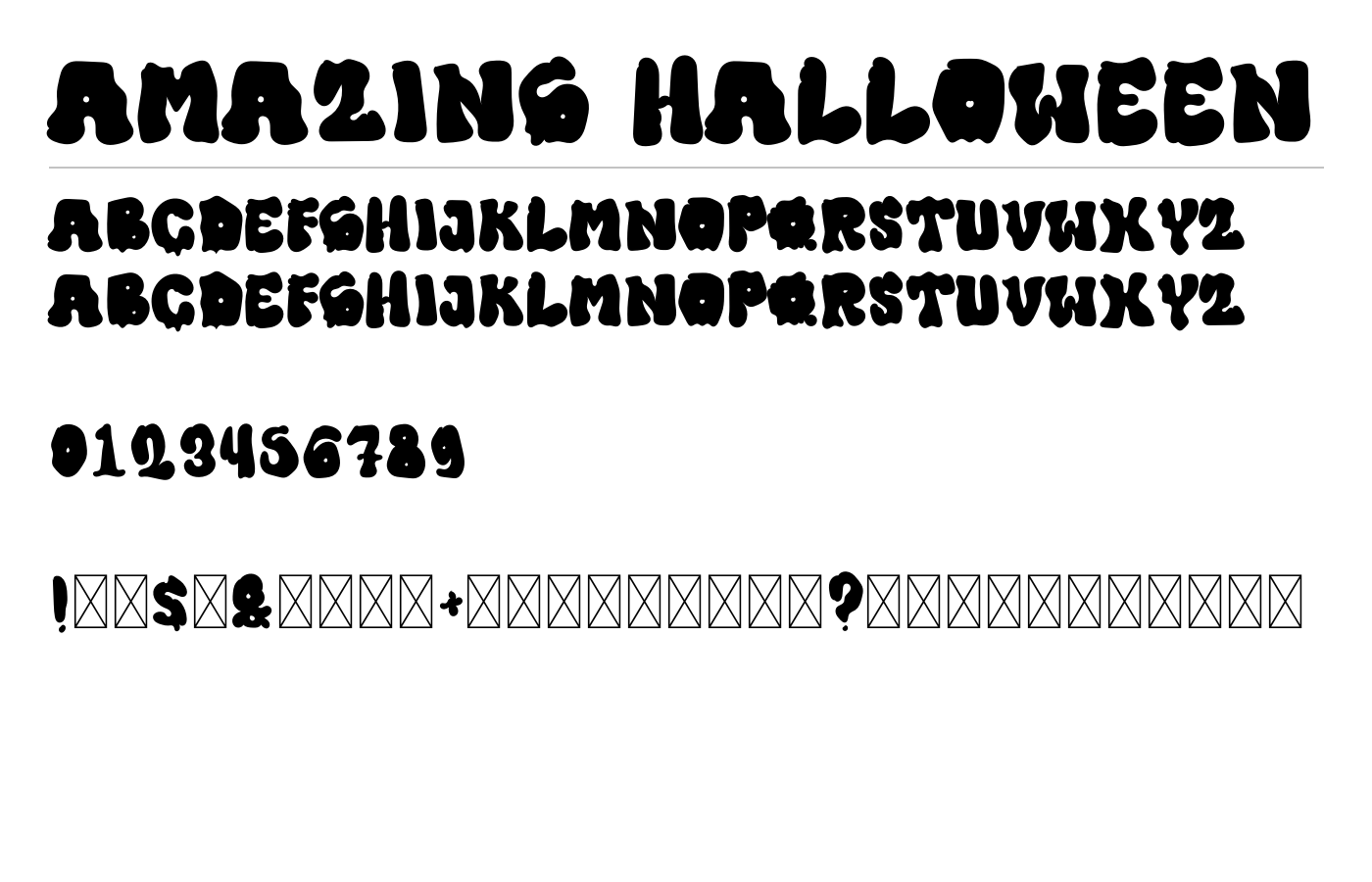
Amazing Halloween Font is a bold, playful display typeface with chunky, irregular letterforms that evoke a spooky, dripping effect perfect for Halloween-themed designs. Its thick, rounded shapes and quirky details create a fun yet eerie mood, making it ideal for party invitations, posters, and festive branding where a lively, seasonal atmosphere is desired. This font stands out in headlines and decorative uses but is best avoided for body text due to its strong visual character.
Amazing Halloween Font
About Amazing Halloween Font